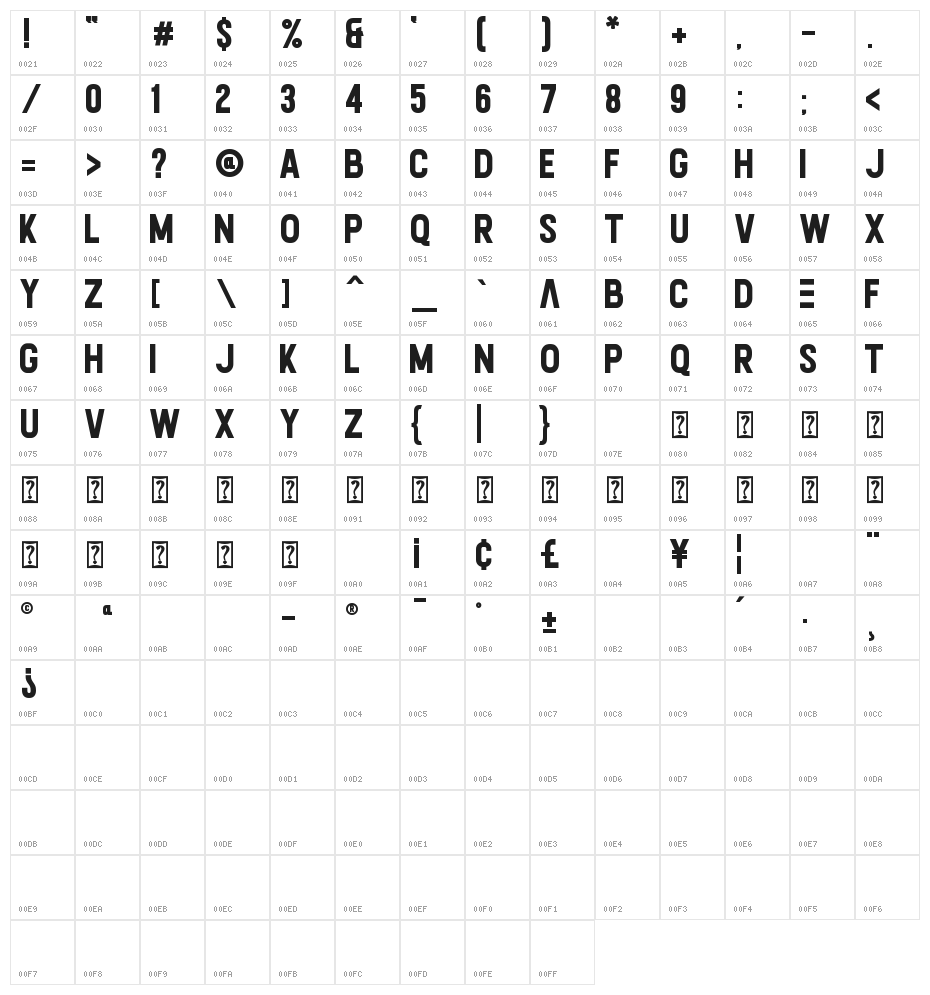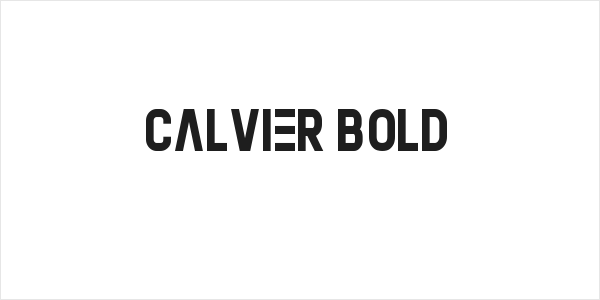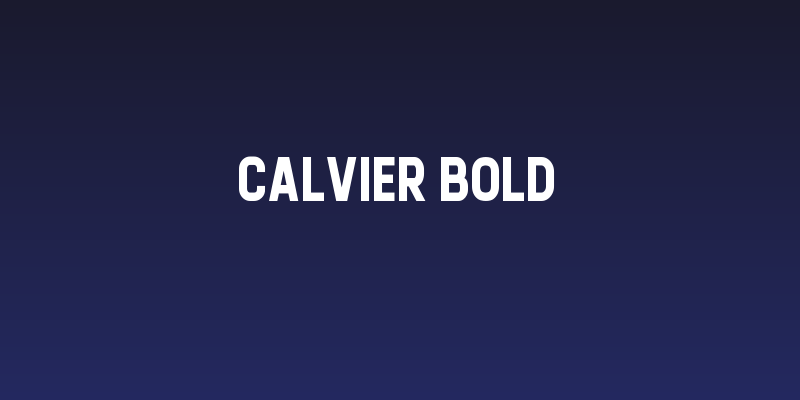
Calvier Bold Font
Calvier Bold Description
This font is a bold, sans-serif typeface characterized by its strong, geometric shapes and clean lines. The uppercase letters are uniform in height, with a consistent stroke width that gives the font a robust and impactful appearance. The lowercase letters maintain the same boldness, ensuring readability and a cohesive look. The numerals are equally bold, matching the overall style of the alphabet. Special characters are designed with the same attention to detail, ensuring they integrate seamlessly with the letters and numbers. This font is ideal for making a strong visual statement.
| Proposed Projects | Ideal for branding, headlines, posters, and any project requiring a strong visual impact. |